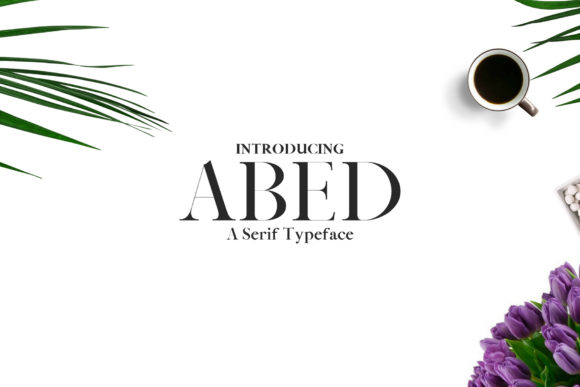
The Abed Font: A Bold and Assertive Serif Game-Changer
I’ll never forget the moment I stumbled upon the Abed font. I was working on a project for a client who needed a bold, eye-catching title for their branding campaign. I had spent hours scouring the internet for the perfect font, but nothing seemed quite right. That was until I saw Abed – a stunning serif font that immediately caught my attention. Its bold and assertive personality was exactly what I needed to elevate my design to the next level.
An Honest Review: What I Love (and What I Don’t)
So, what makes Abed font so special? Here are a few things I love:
- ✨ Bold and assertive personality: Abed font is not for the faint of heart. It’s loud, it’s proud, and it’s ready to make a statement.
- ✅ Masterful design: The attention to detail in Abed font is impressive. From the subtle serifs to the elegant letterforms, every aspect of this font has been carefully crafted.
- 💡 Versatility: Despite its bold personality, Abed font is surprisingly versatile. It can be used for titles, headings, and even body text (if you want to make a statement).
Of course, no font is perfect, and Abed is no exception. Here are a few quirks to keep in mind:
- 🤔 Limited use in small text sizes: While Abed font is amazing for titles and headings, it can get a bit lost in smaller text sizes. Be sure to use it judiciously.
- ⚠️ Some glyphs may require manual adjustment: Depending on your design, you may need to manually adjust some glyphs to get the perfect fit.
Abed font was designed with one goal in mind: to create a bold, assertive serif font that would make a statement. The designer, inspired by classic typography and modern design trends, set out to craft a font that would be both elegant and attention-grabbing. The result is a font that’s perfect for designers, crafters, and creative hobbyists alike.
| What is Abed font? | Abed font is a bold and assertive serif font designed to make a statement. |